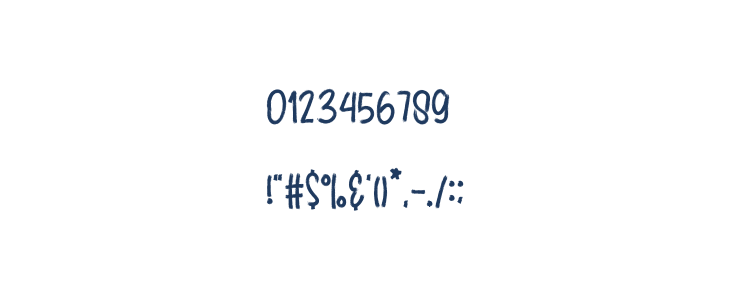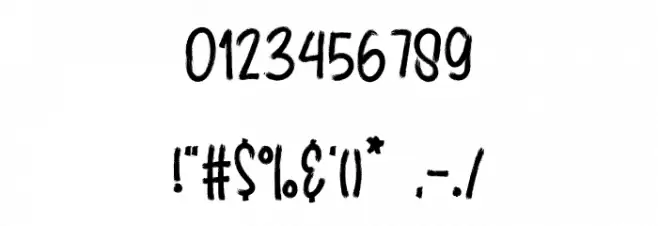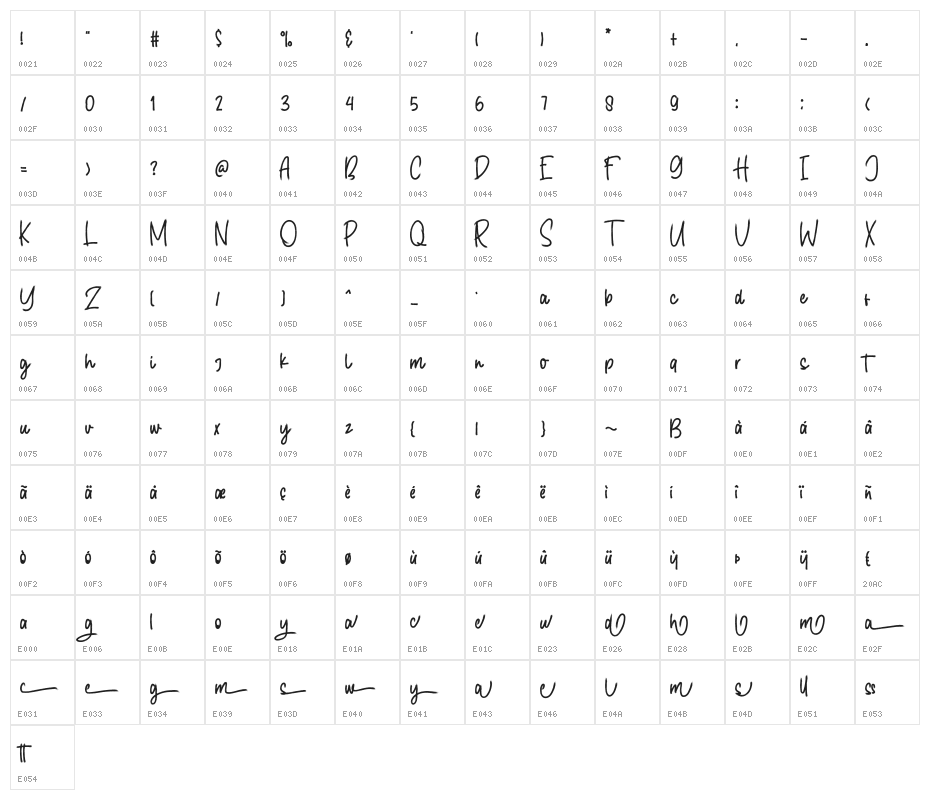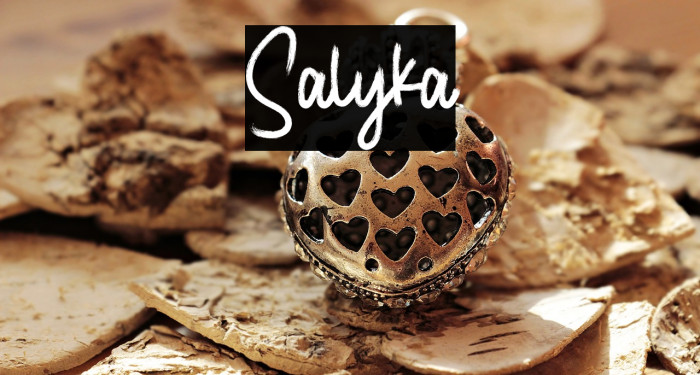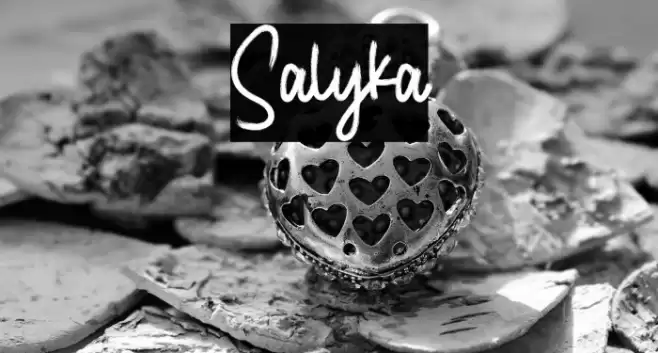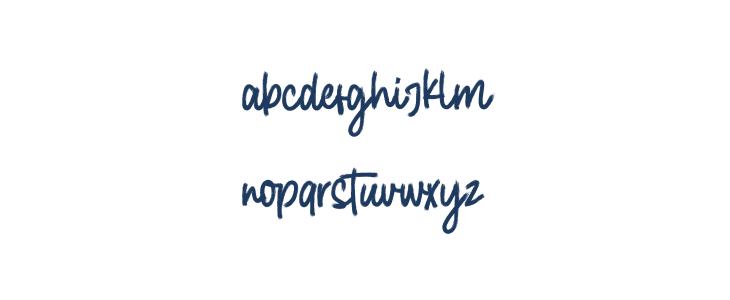
Salyka Font
Salyka Description
This font features a playful and dynamic handwritten style, characterized by its fluid and slightly irregular strokes that give it a casual and friendly appearance. The uppercase letters are bold and slightly slanted, while the lowercase letters maintain a consistent flow with a touch of whimsy. The numbers and special characters are designed to match the overall aesthetic, ensuring a cohesive look across all text elements. The font's informal nature makes it suitable for projects that require a personal touch or a relaxed vibe.